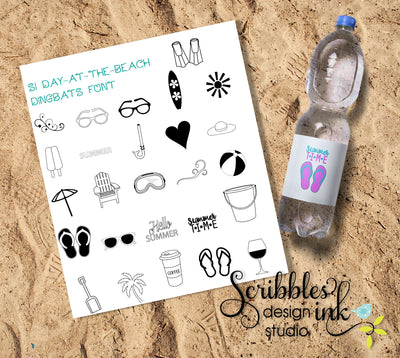
A-Day-at-the-Beach Dingbats Font
This dingbat font contains 26 different designs to type and cut. They can be used in a variety of projects. They can be used to create on tattoo paper, window clings, tags, cards, charts, planners, stamps, scrapbooking, labels - a lot of projects. They can be re-sized without affecting the quality. They are mapped to a regular keyboard.